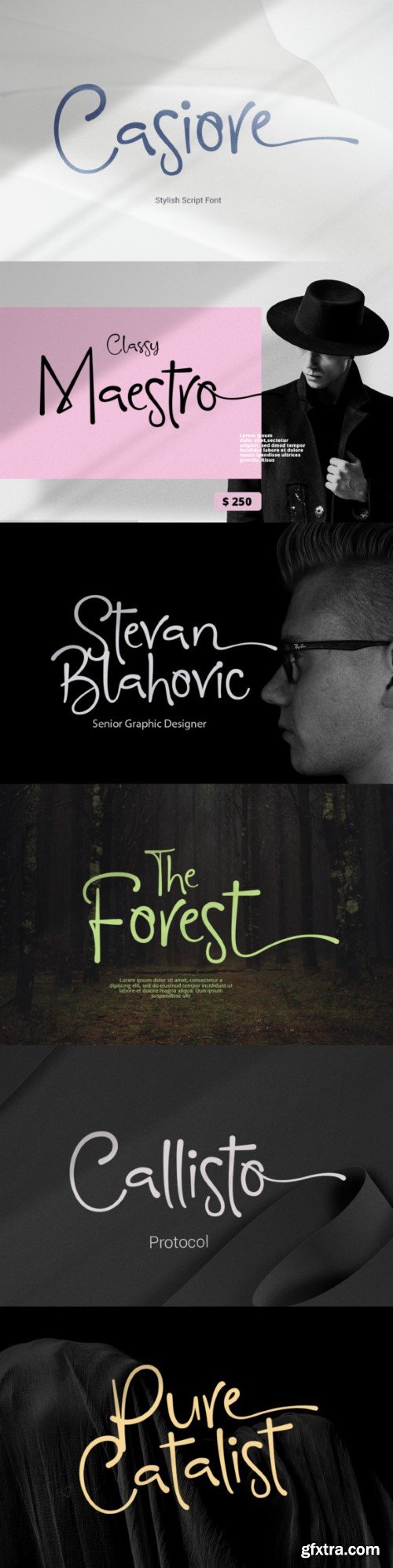
卡西欧字体
Introducing Casiore, a sleek handwritten font that effortlessly marries elegance with a vibrant brush style. Drawing inspiration from contemporary calligraphy, this striking typeface illuminates your brand and breathes life into your digital creations. Casiore comes with a wealth of alternative glyphs and ligatures, providing it with a dynamic versatility. Ideal for any graphic design application, Casiore shines particularly bright when used in crafting catchy quotes, dynamic logos, captivating social media content, intriguing websites, thought-provoking blogs, and inviting invitation cards. Experience the sheer visual poetry that Casiore brings to your design palette.